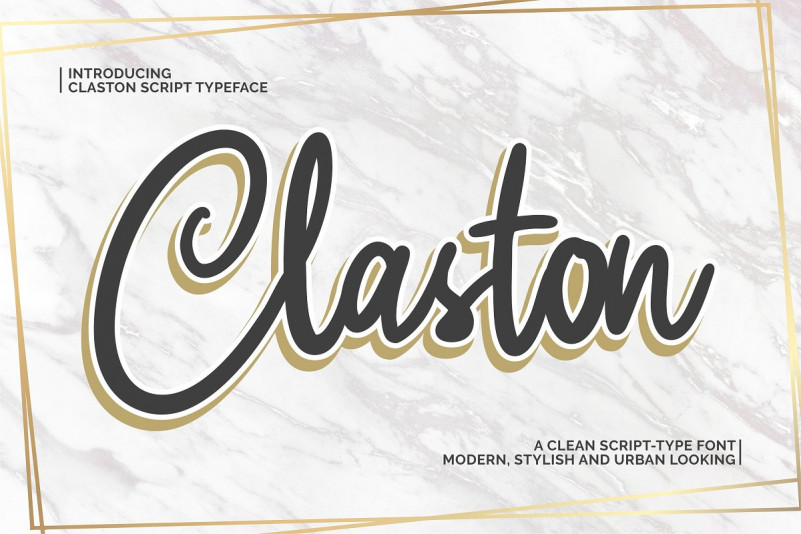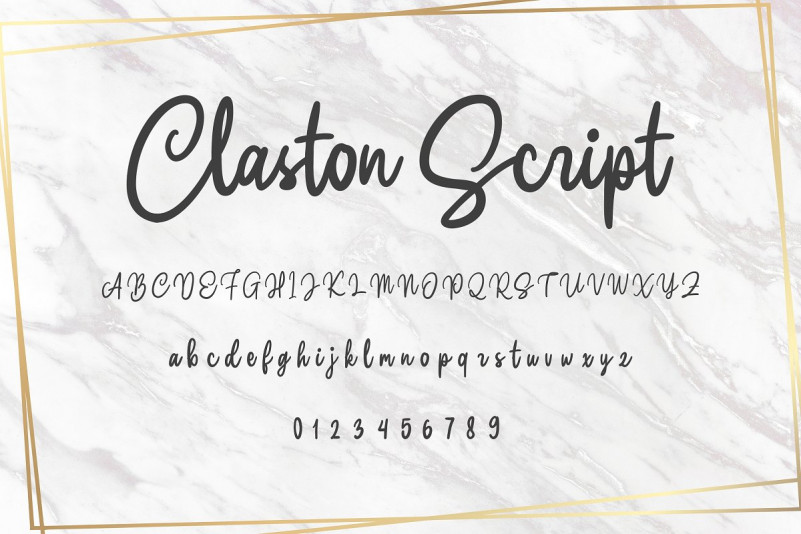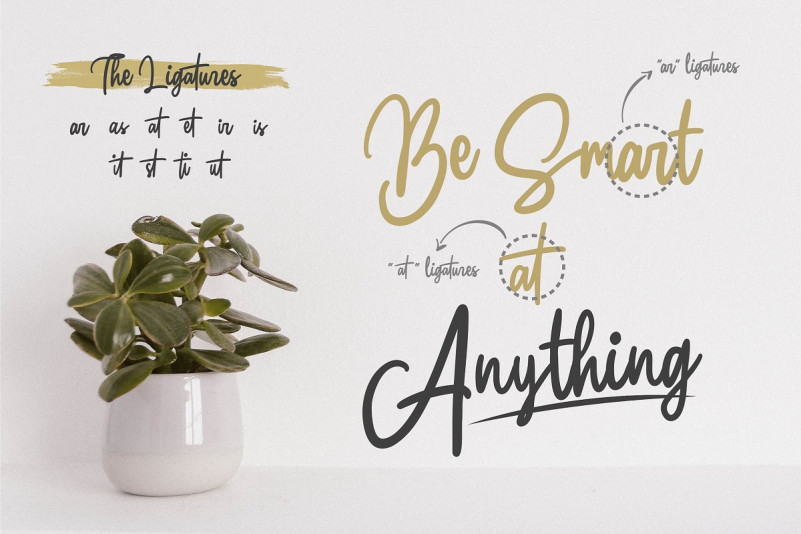
Claston Font
Move forward with elegance and bring your audiences to where your vision is: the future. It might take some time to get them there, but that’s okay! You have the perspective, the frame of mind, and most importantly the attitude to wrap it all together into a neat project!
The Claston Script aims to bring out a modern and stylish view to what you make. It fits right in with your designs, whatever it is! It’s beautiful without trying too hard, it’s gorgeous without being apologetic, it’s brave in the face of uncertainty, these all represent you.